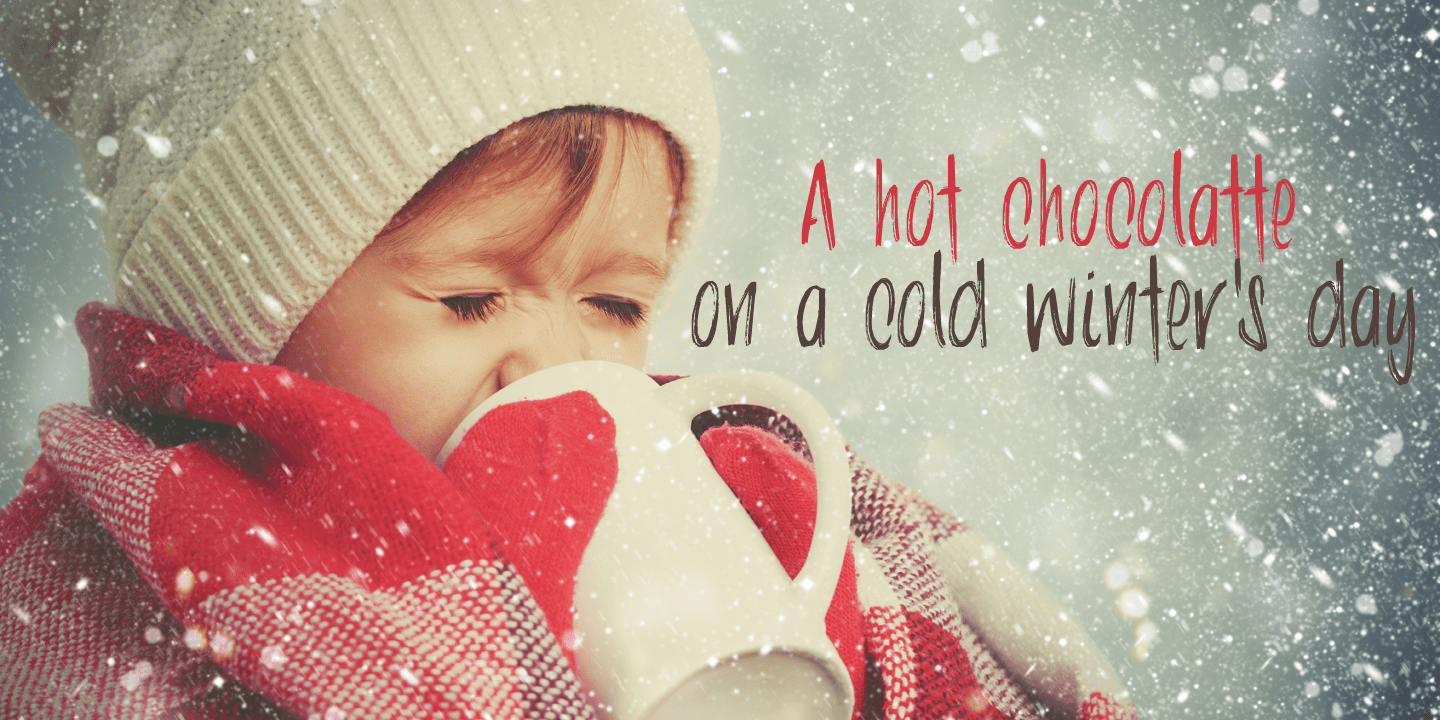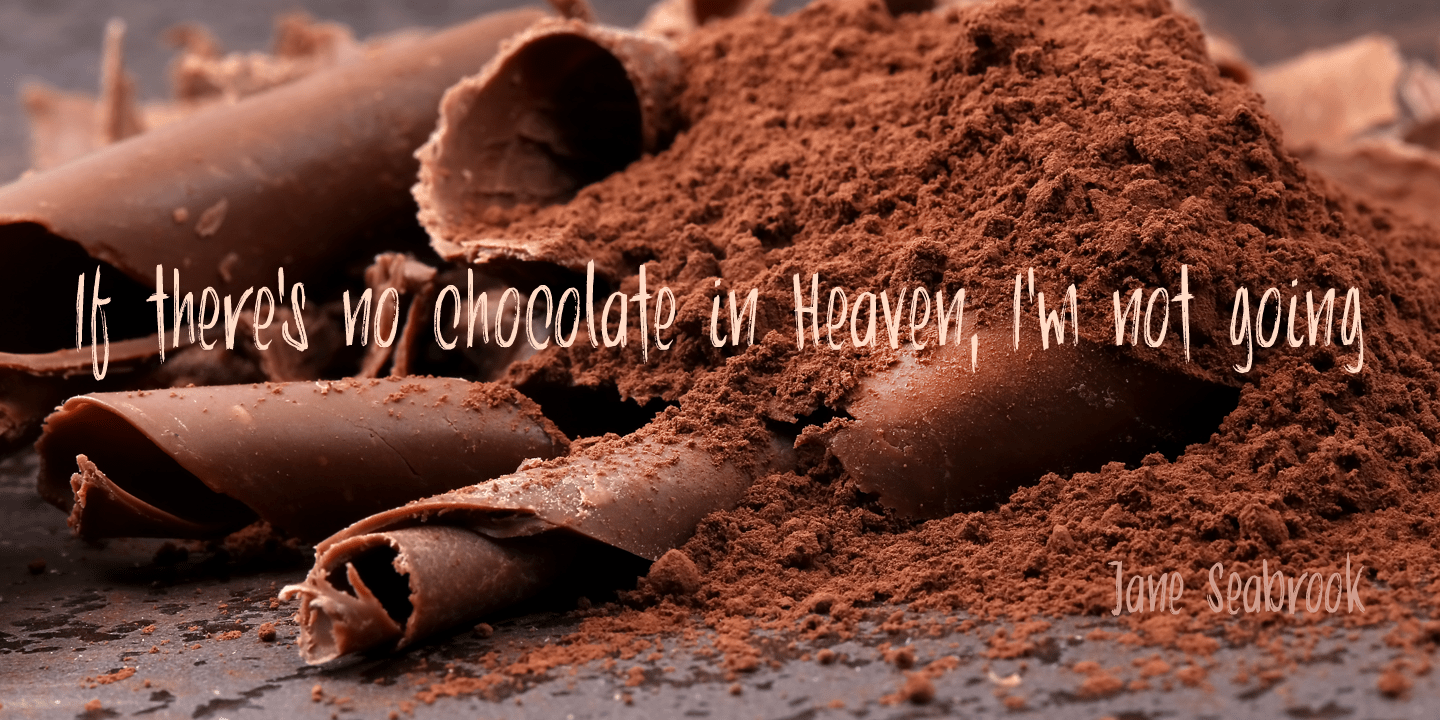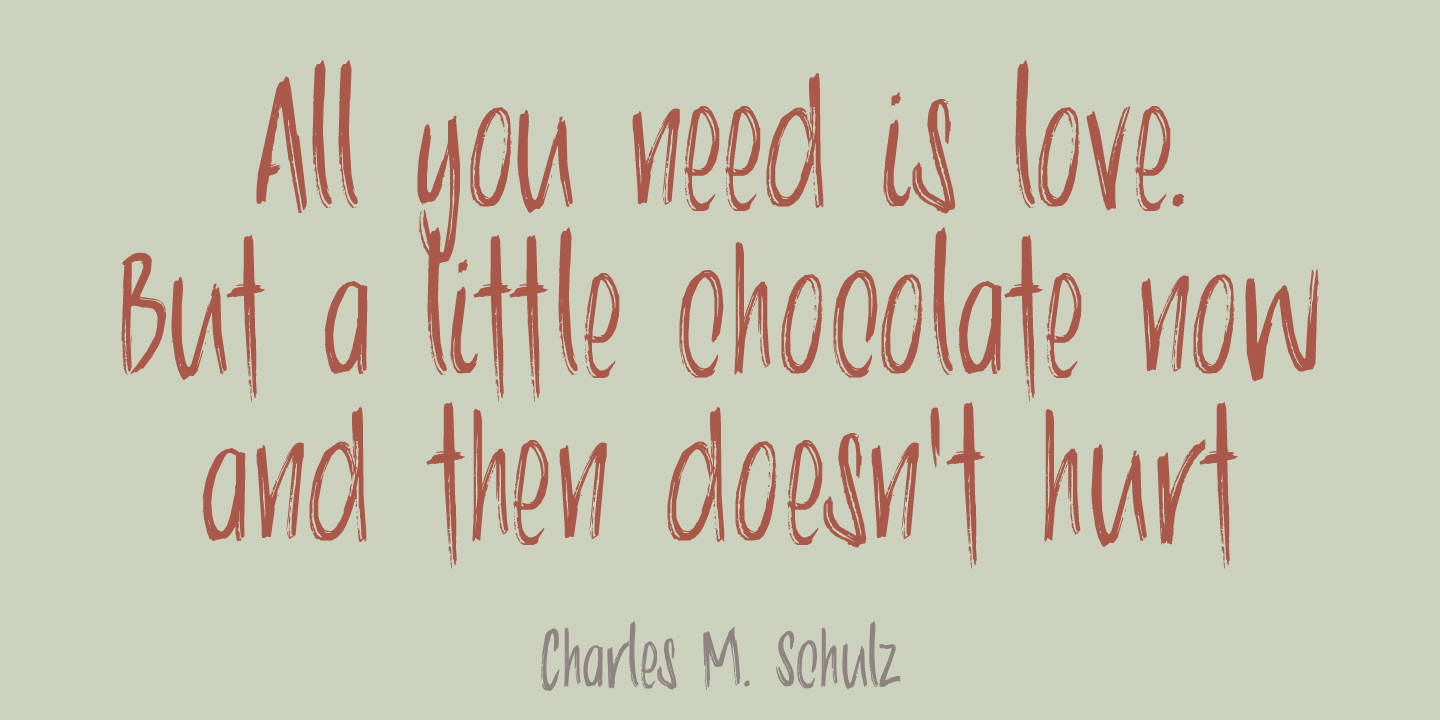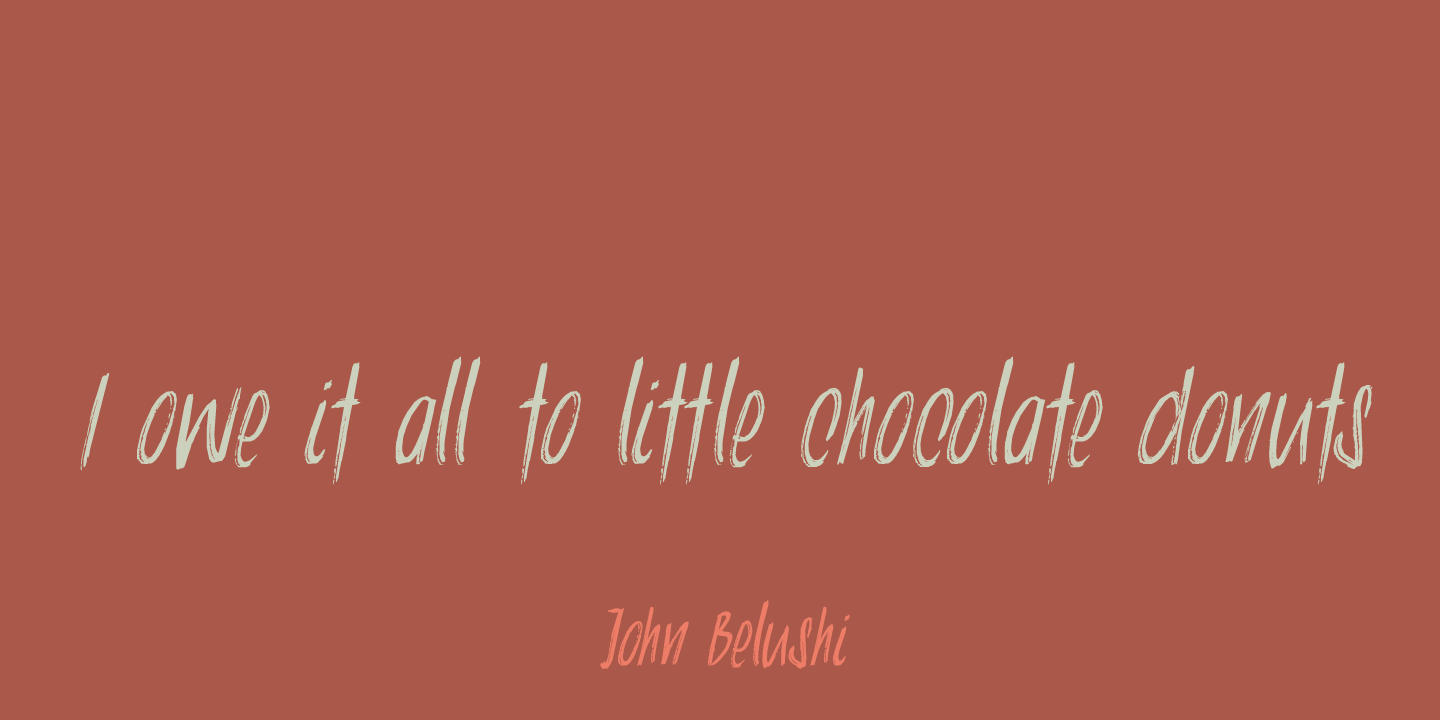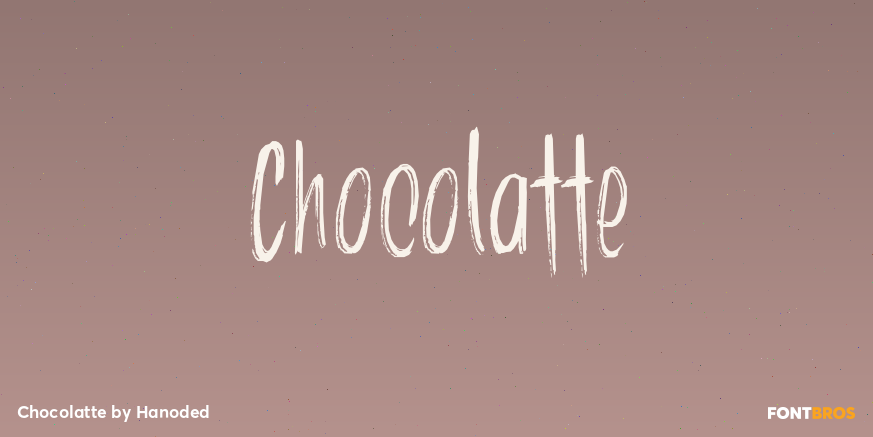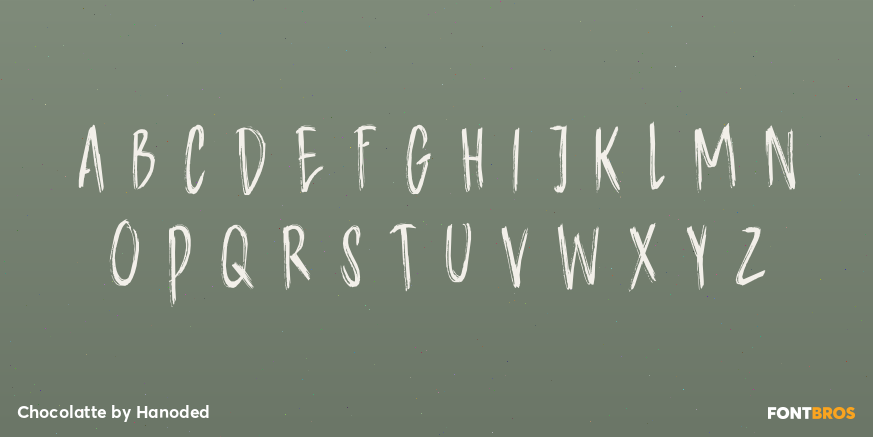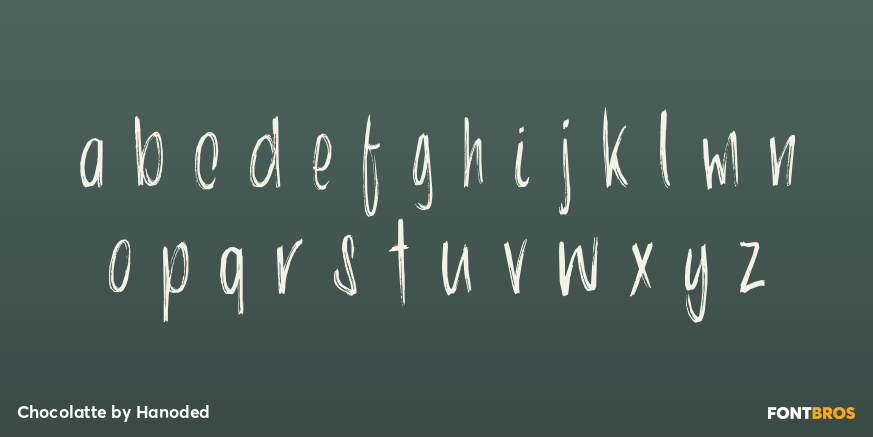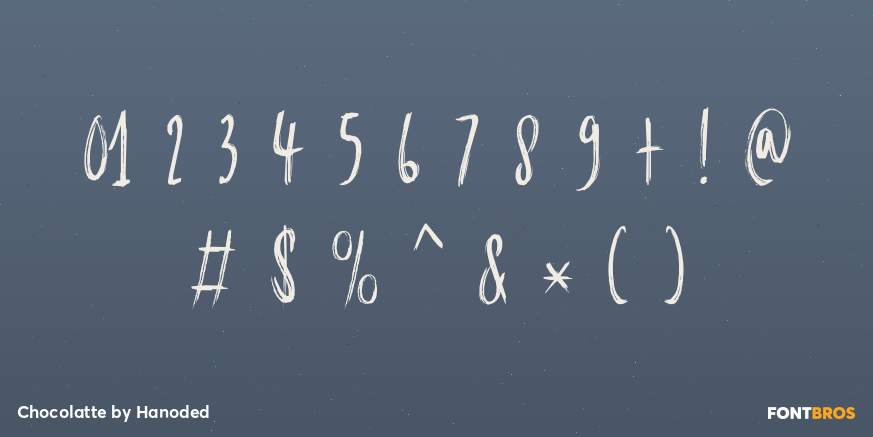
Chocolatte
Chocolatte font is a yummy, creamy script font, made entirely with chocolate... No, sorry, that's not true. It was made with a pen, but I thought I'd create a nice urban myth.
Chocolatte is a pretty useful font: you can stick it on your X-mas cards, write a little poem with it and surprise the love of your life with an enormous amount of chocolate, decorate your cake with it (preferably a chocolate cake) or use it for your? Well, whatever.
Just remember that this delicious font cannot be eaten, but it does come with copious amounts of diacritics for all you chocoholics out there!